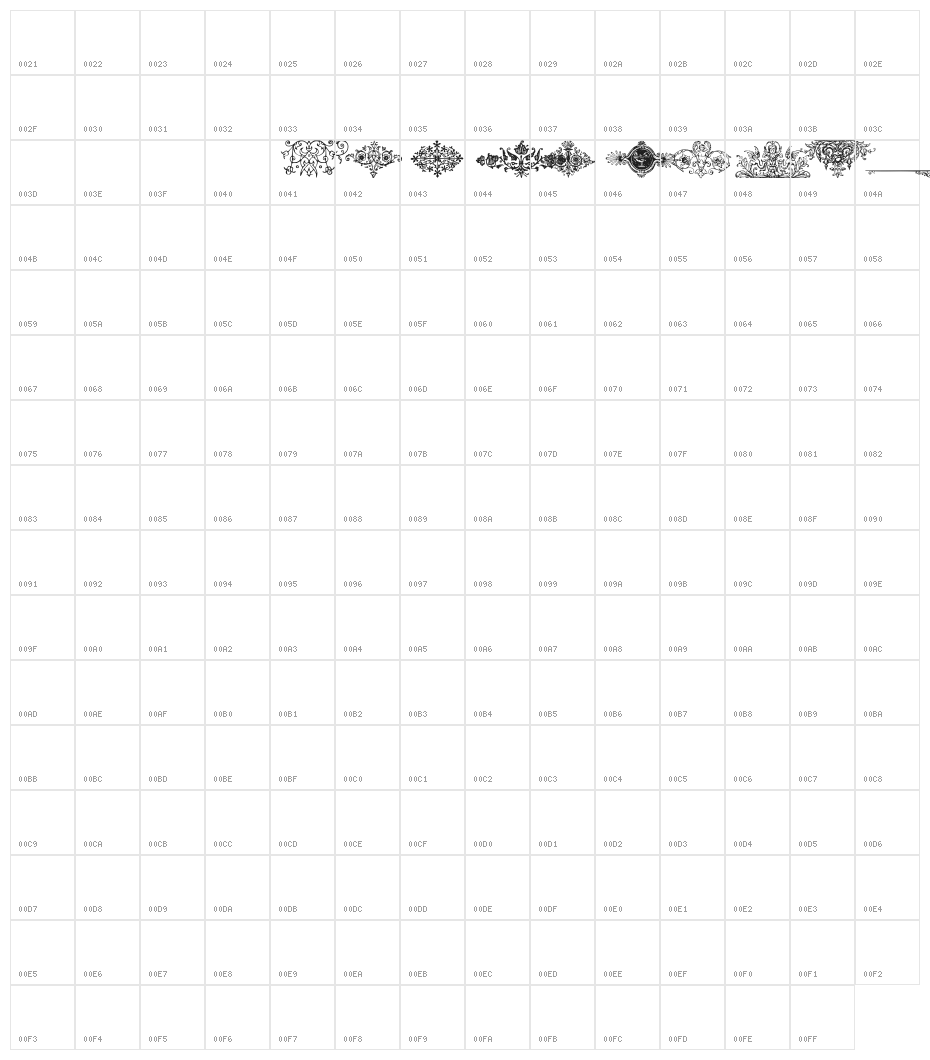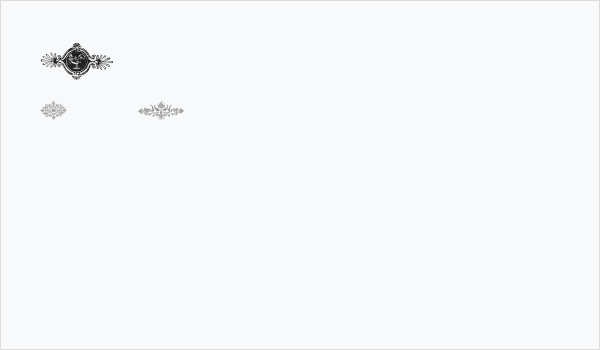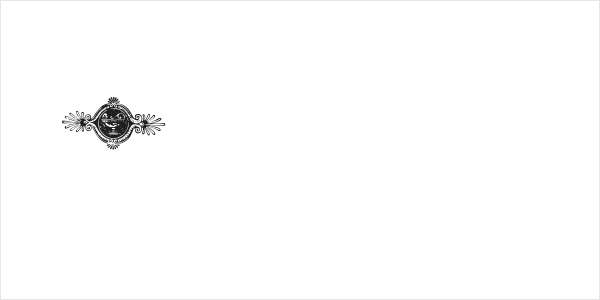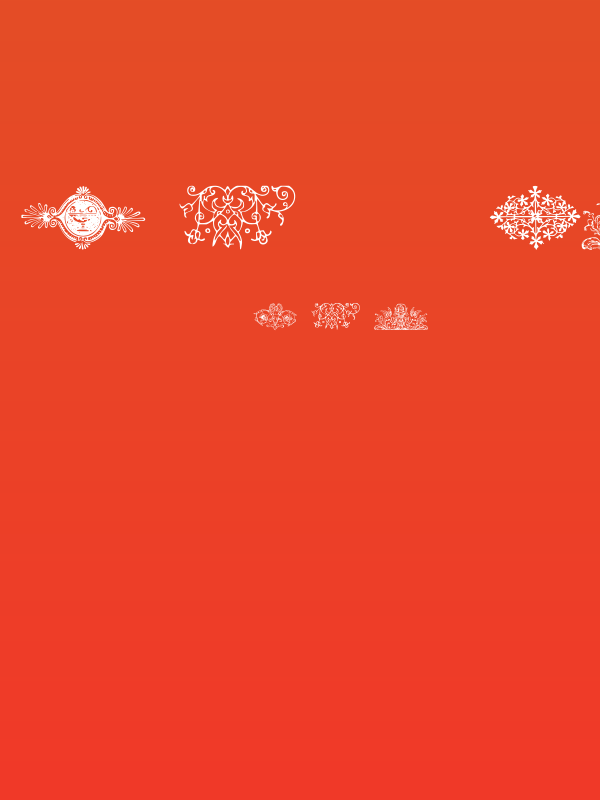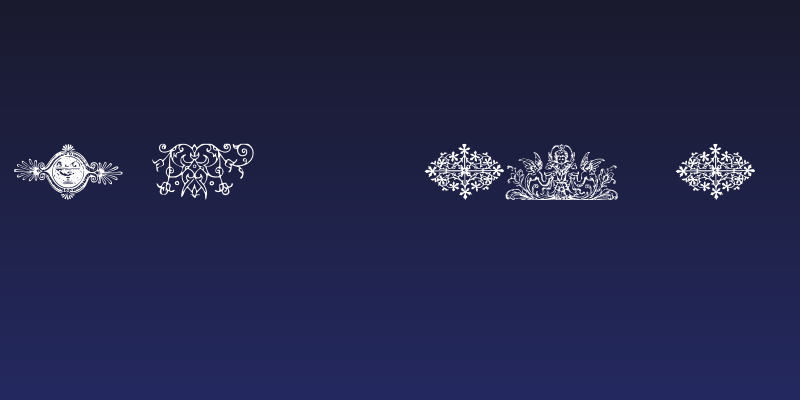
Fraktur-Schmuck Font
Fraktur-Schmuck Description
Highly decorative set of ornamental glyphs featuring intricate flourishes, swashes, and symmetrical motifs reminiscent of vintage or historical embellishments, rather than standard alphanumeric characters.
| Overall Style | Decorative, Vintage |
| Use Case | Borders, Dividers, Decorative accents |
| Proposed Projects | Wedding invitations, certificates, book covers, vintage posters, decorative borders. |